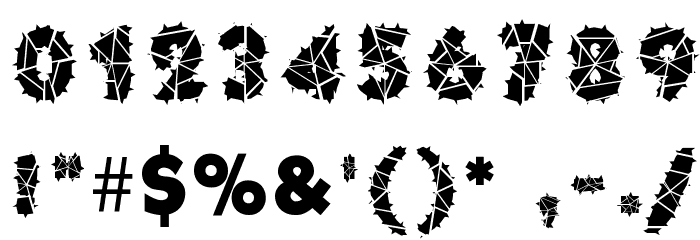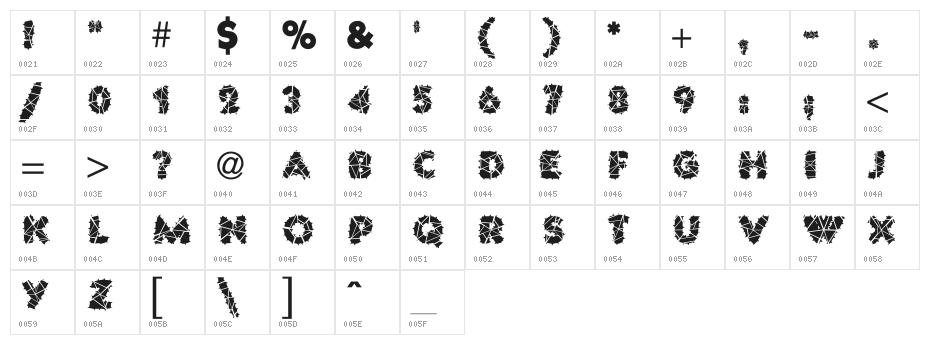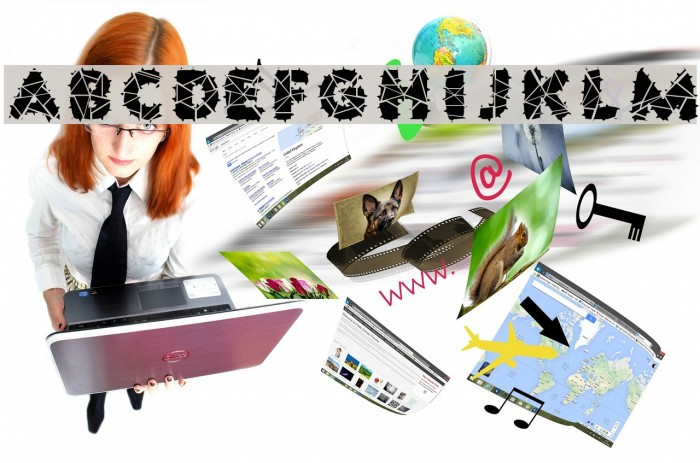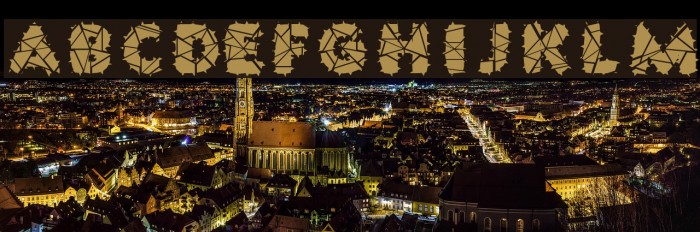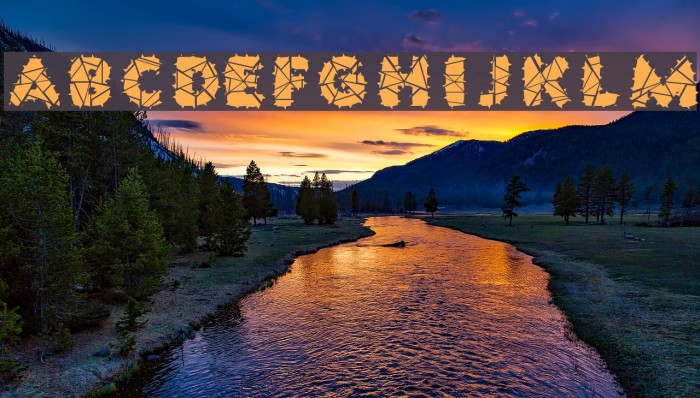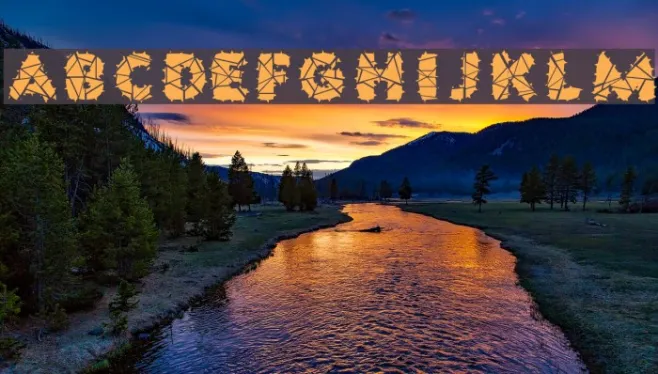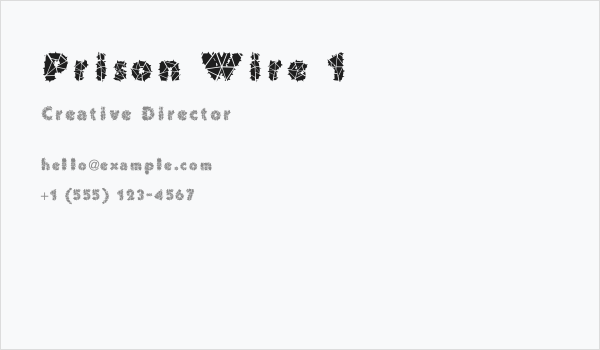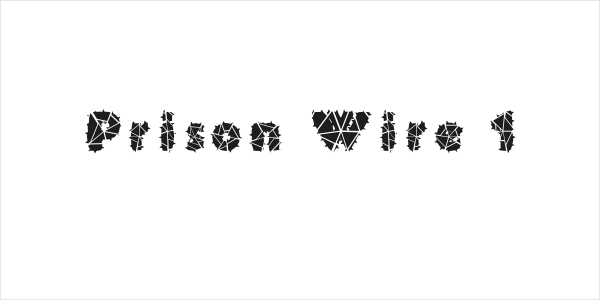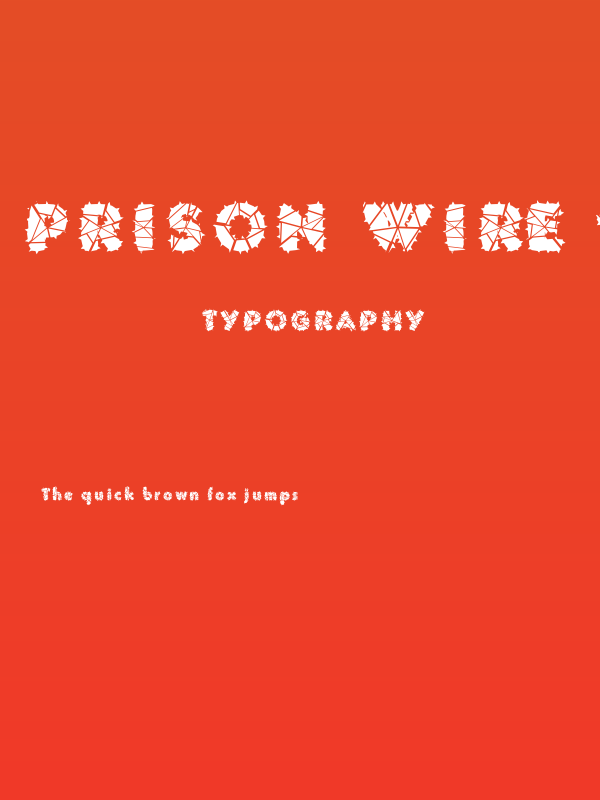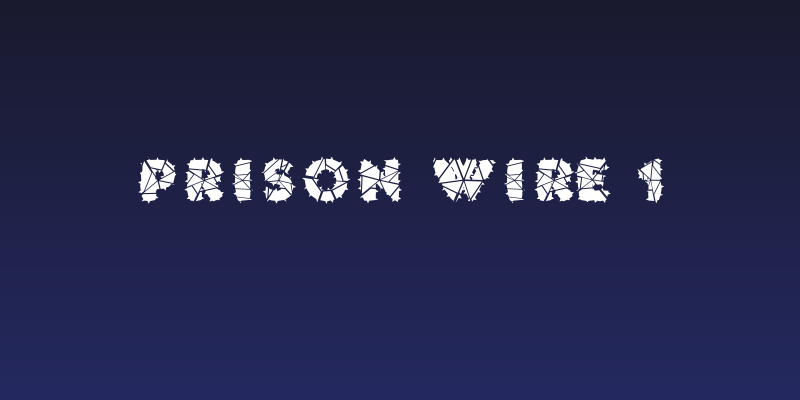
Prison Wire 1 Font
Prison Wire 1 Description
This font features a unique and edgy design, reminiscent of barbed wire or shattered glass. Each character is composed of sharp, angular fragments that create a sense of chaos and disruption. The bold, jagged lines give it a rugged and rebellious appearance, making it stand out in any design. The font maintains a consistent style across uppercase, lowercase, numbers, and special characters, ensuring a cohesive look. Its distinctive style is perfect for projects that require a gritty, industrial, or urban aesthetic.
| Overall Style | Modern, Edgy |
| Proposed Projects | Ideal for album covers, posters, streetwear branding, or any project needing a gritty, rebellious vibe. |